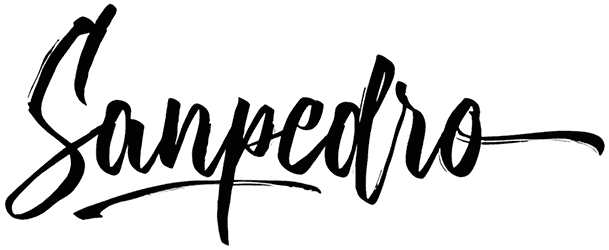
Sanpedro Font
Sanpedro is a beautiful and versatile way to add personality and style to your designs. This brush font can convey elegance and complexity to playfulness and whimsy with smooth and agile movement.
Although the lack of numbers may seem like a limitation initially, it can be a creative challenge leading to new ideas and solutions. Then use the hidden ability of this script font to bring a human touch to the digital design of your website, packaging, and greeting cards.